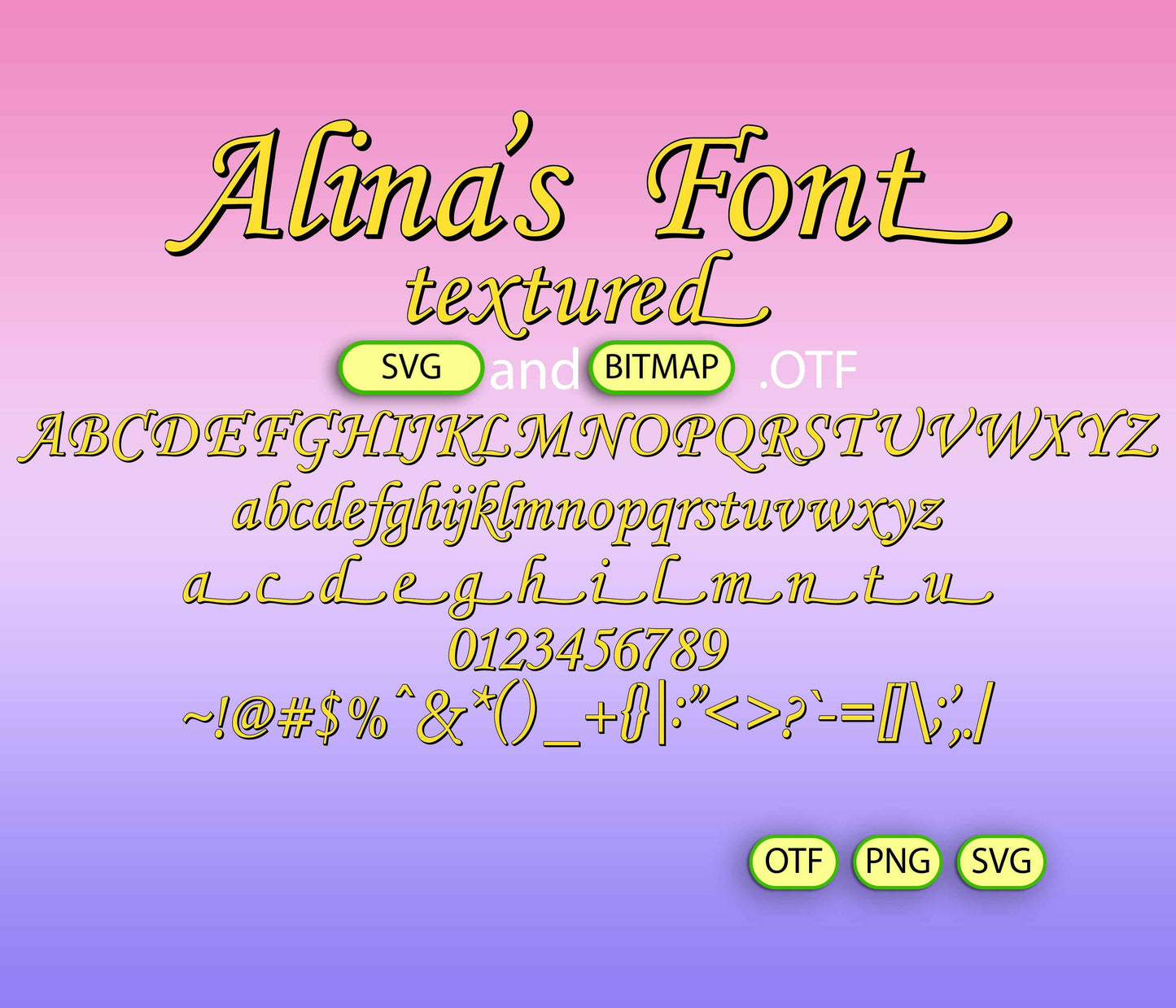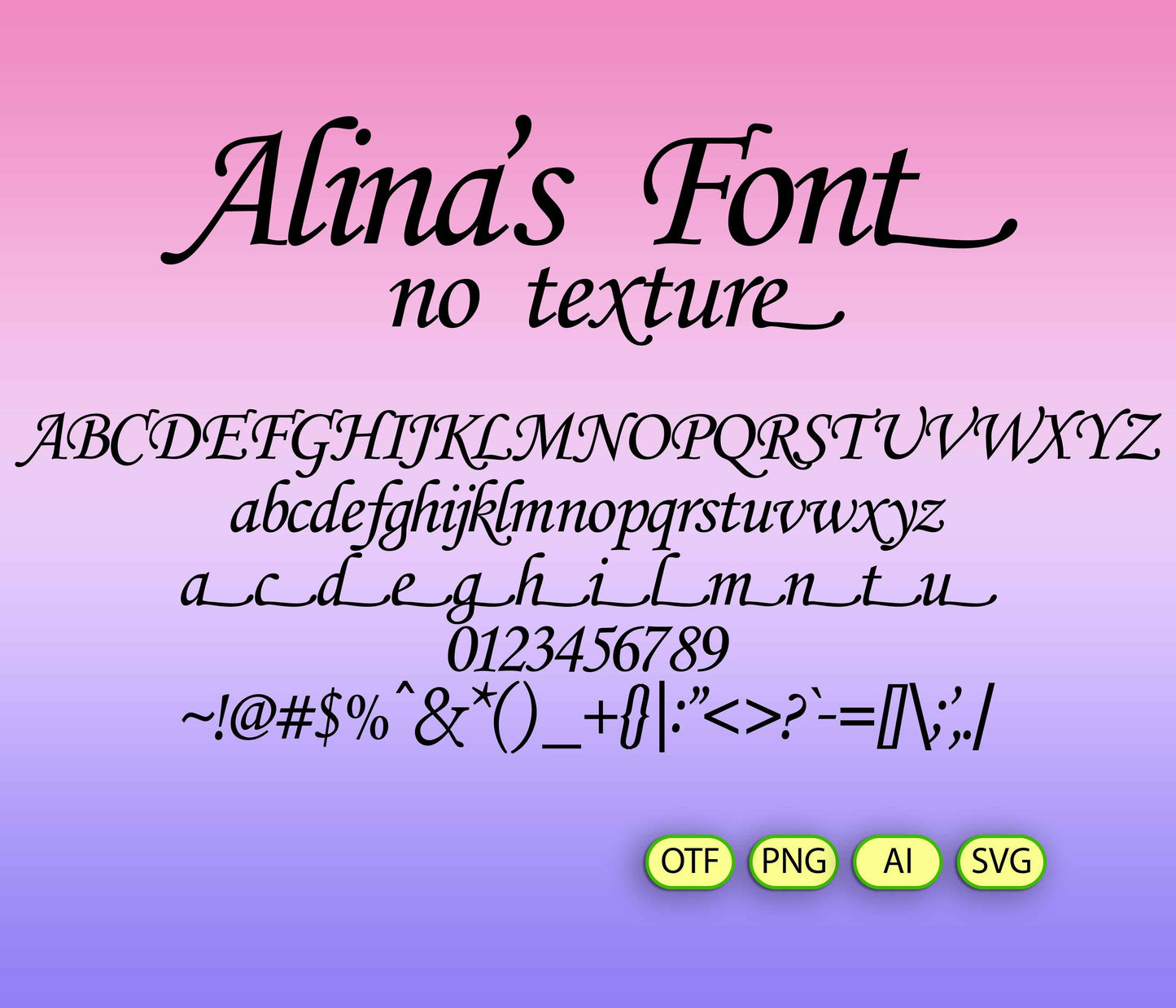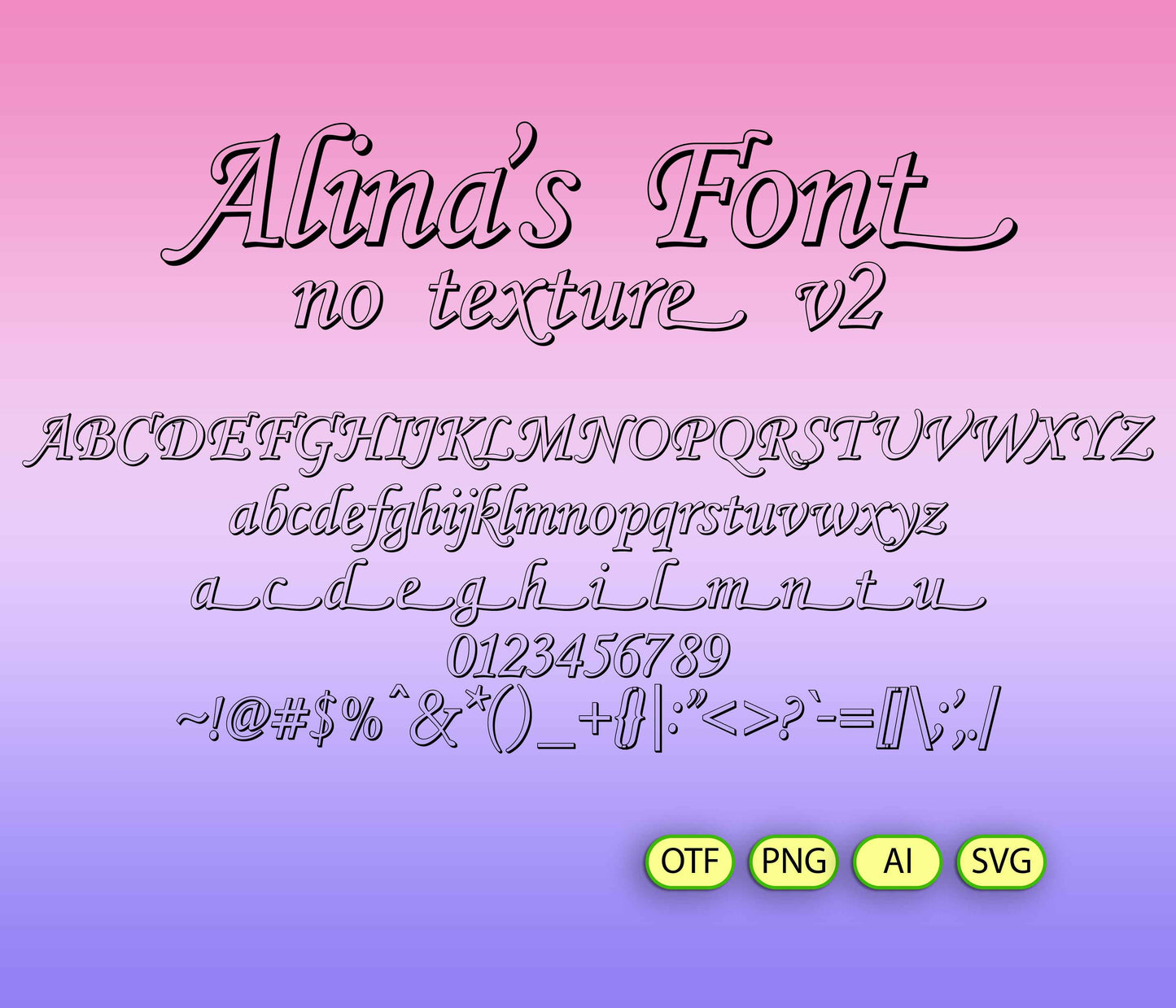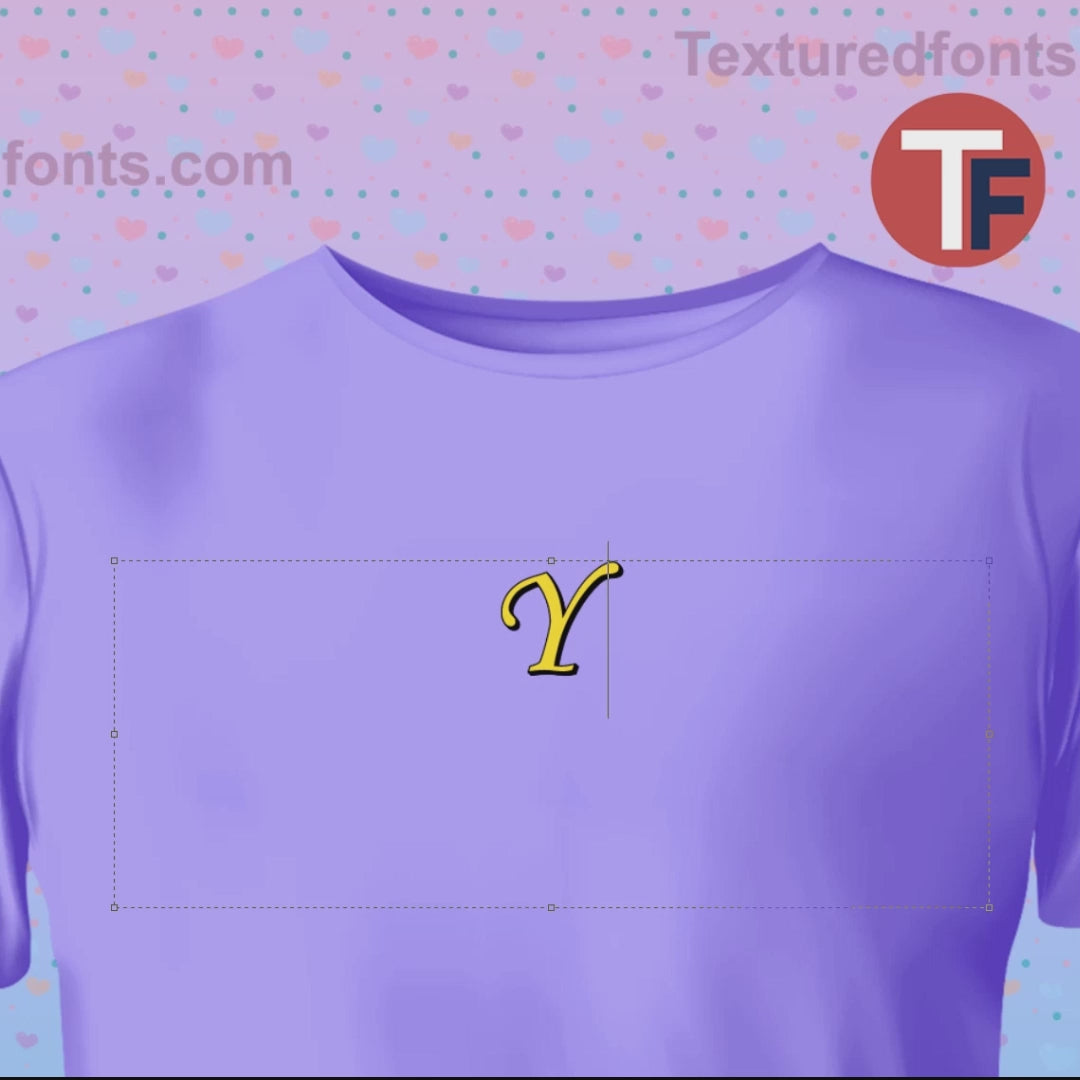
Retro Ladies Font Textured
Celebrate Classic Charm with The Retro Ladies Font
Step into the world of laughter, friendship, and timeless style with our exclusive Retro Ladies-inspired font. Ideal for fans and creators alike, this font is a tribute to the sharp wit and endearing antics that made these characters beloved fixtures in television history. Whether crafting a heartfelt tribute or designing retro-themed content, our font ensures your projects resonate with the charm and personality of these favorite housemates.
The Retro Ladies-inspired font is designed for versatility, easily adaptable for both personal and commercial projects. It's perfect for a range of creative applications, ensuring each project can capture the spirit of the show. Here are some specific uses that highlight its adaptability:
This font package is loaded with features to enhance both its appeal and functionality. It comes in both textured and non-textured variants, along with a version with no texture to ensure compatibility with various software applications, including Canva. This makes it incredibly easy for fans and designers to use the font across different platforms without any technical issues. Furthermore, the non-textured version is compatible with all software, ensuring that whether you're using a sophisticated design program or a simple online tool, you can incorporate this font seamlessly into your projects. It's especially useful for those who prefer to work within Canva, making design accessible to everyone from professional designers to DIY enthusiasts.
Our Retro Ladies-inspired font is not just a typeface; it's an invitation to relive and celebrate the enduring legacy of one of television's most cherished shows. With its versatile application and user-friendly features, this font lets you bring a piece of the magic into every design or project you create. Get ready to spread joy and nostalgia through every word you type!